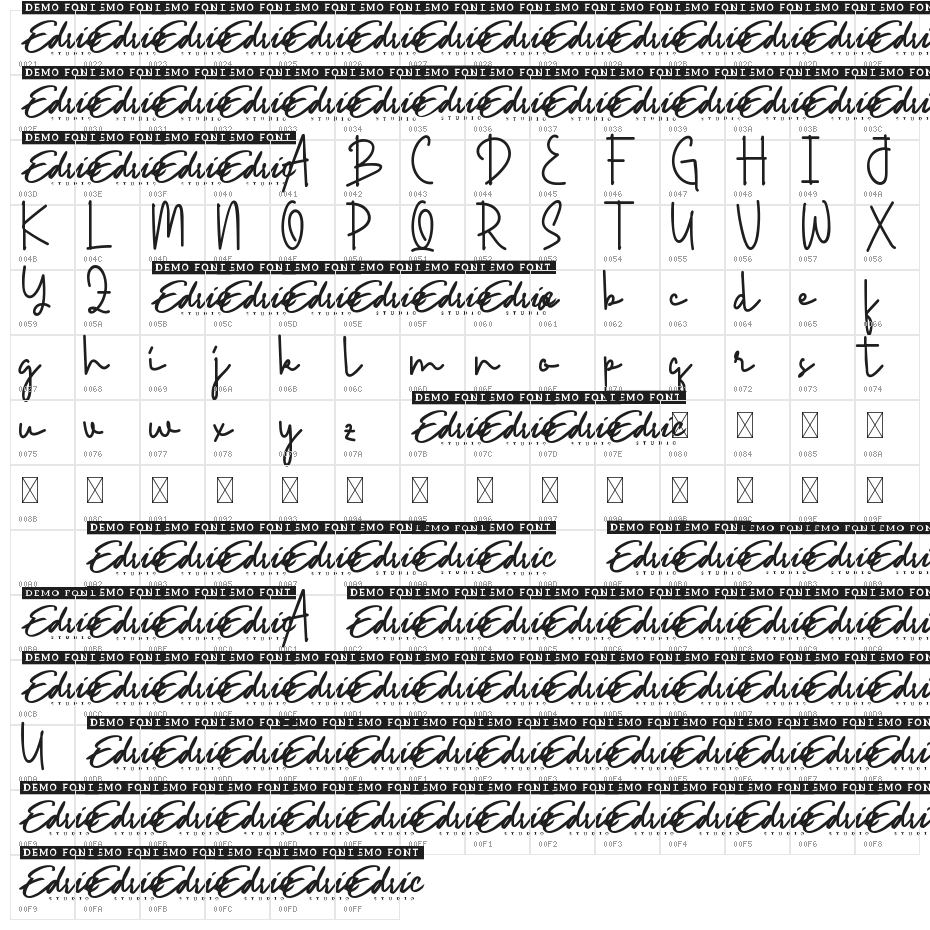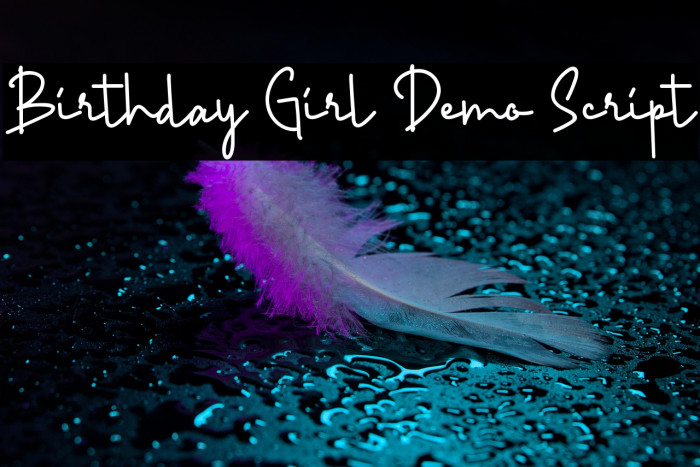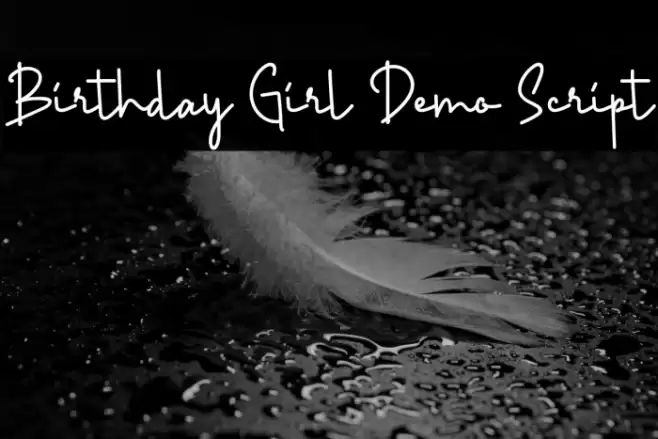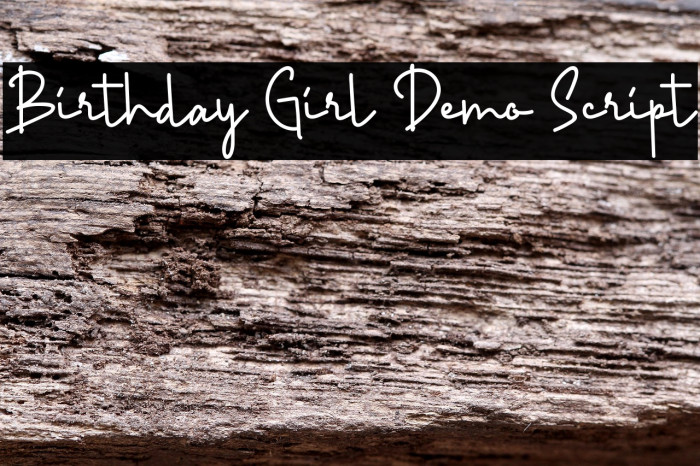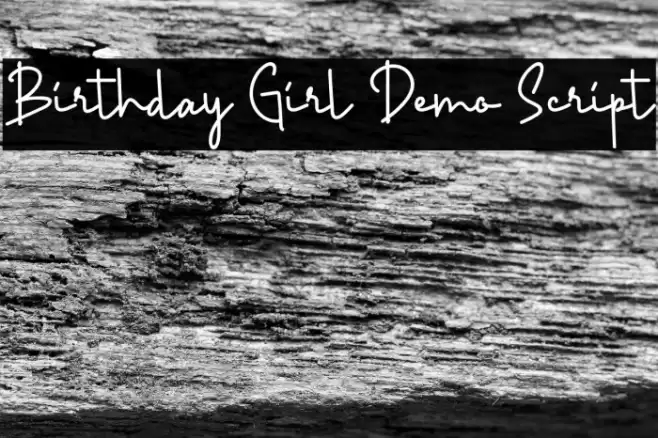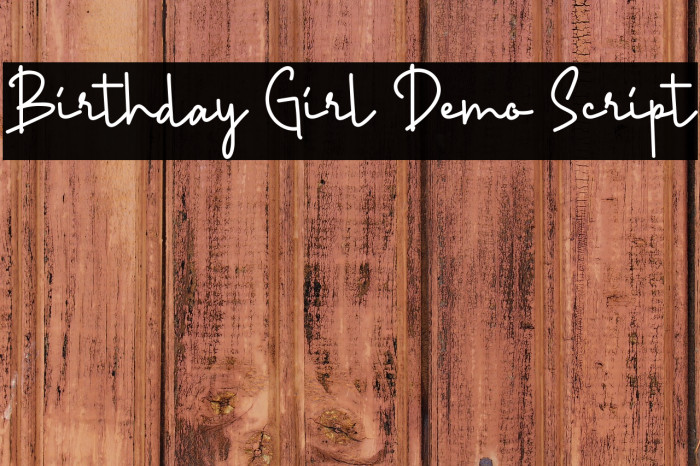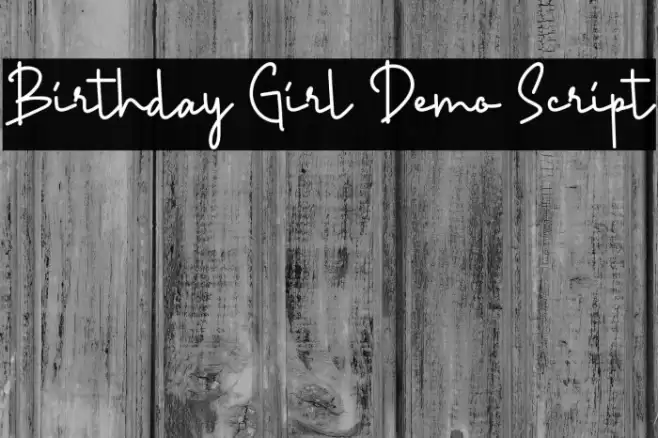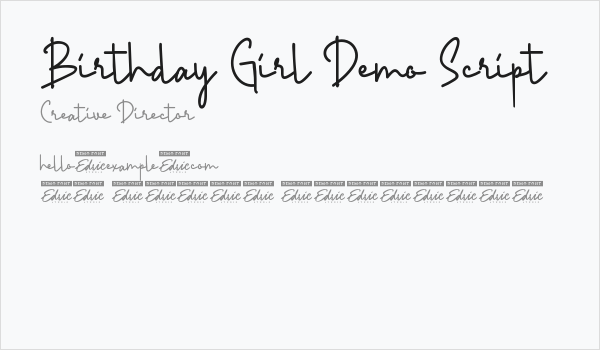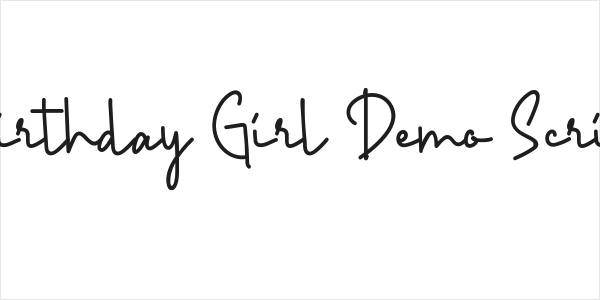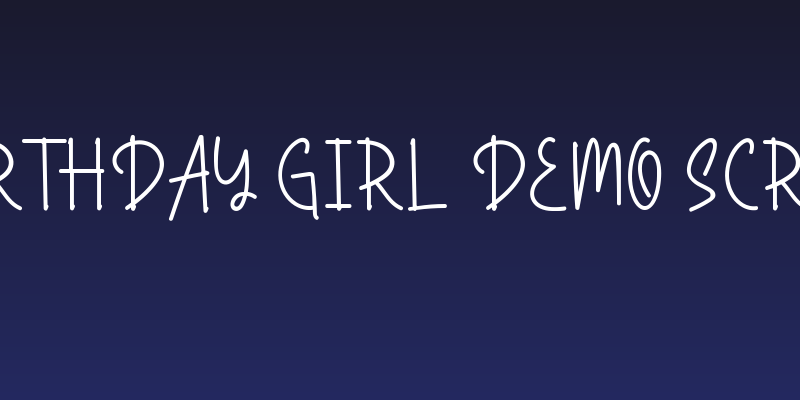
Birthday Girl Demo Script Font
Birthday Girl Demo Script Description
This font features a playful and whimsical script style, characterized by its flowing, handwritten appearance. The uppercase letters are tall and slender, with a slight slant that adds a dynamic feel. The lowercase letters are more fluid, with loops and curves that enhance its casual and friendly vibe. The font maintains a consistent stroke width, giving it a clean and modern look. It's perfect for projects that require a personal touch, such as invitations, greeting cards, or branding for creative businesses. The overall design is both approachable and stylish, making it versatile for various applications.
| Proposed Projects | Ideal for invitations, greeting cards, personal branding, and creative business logos. |